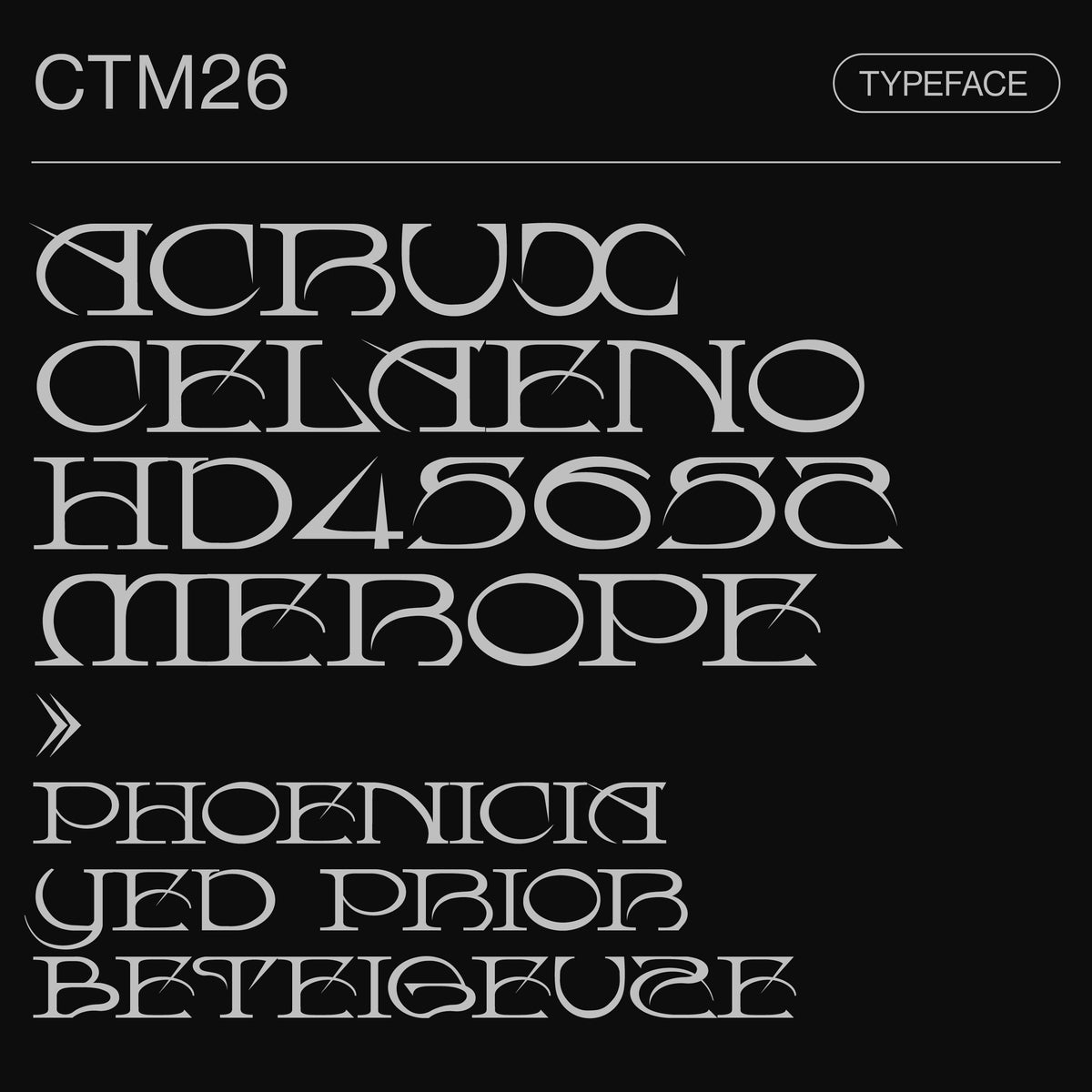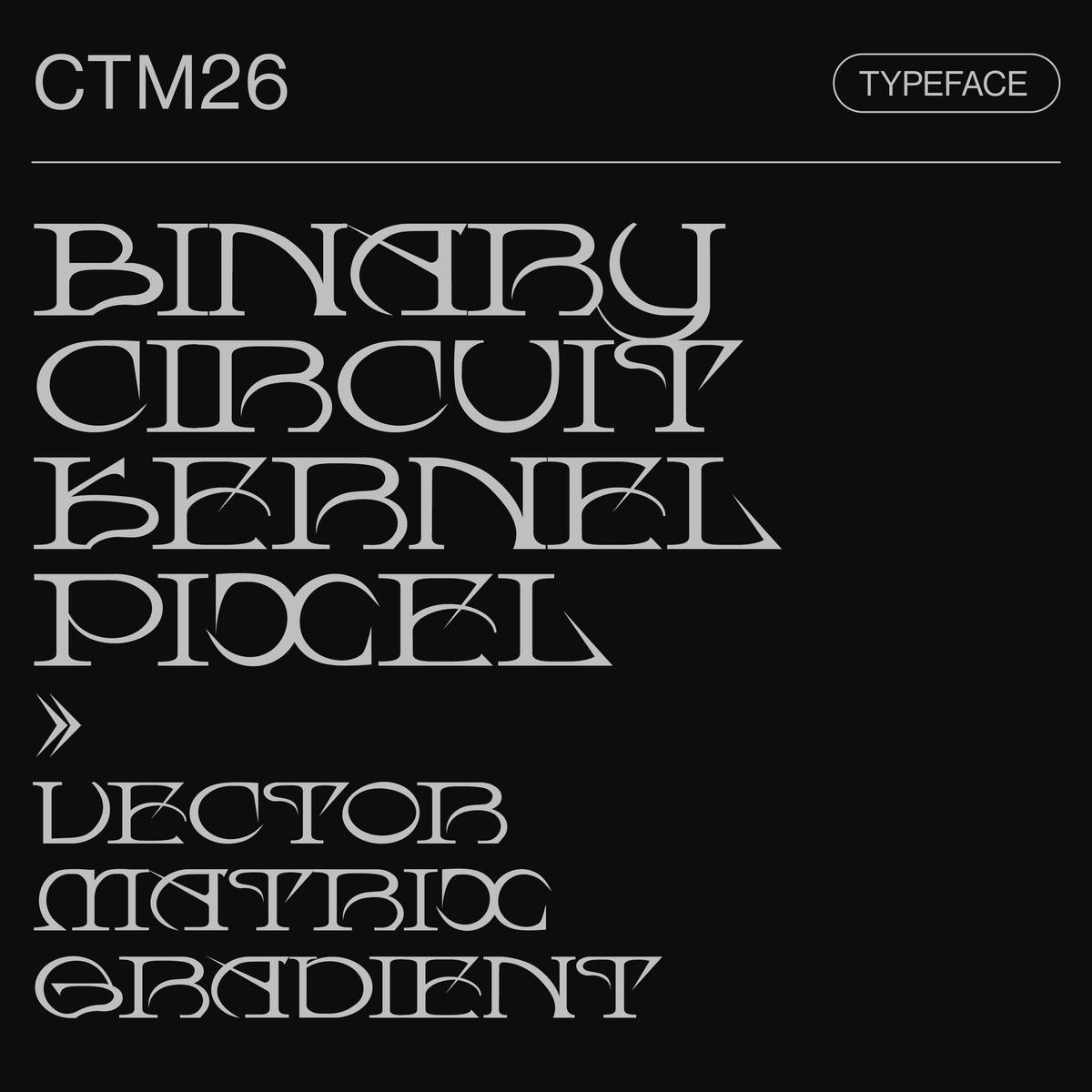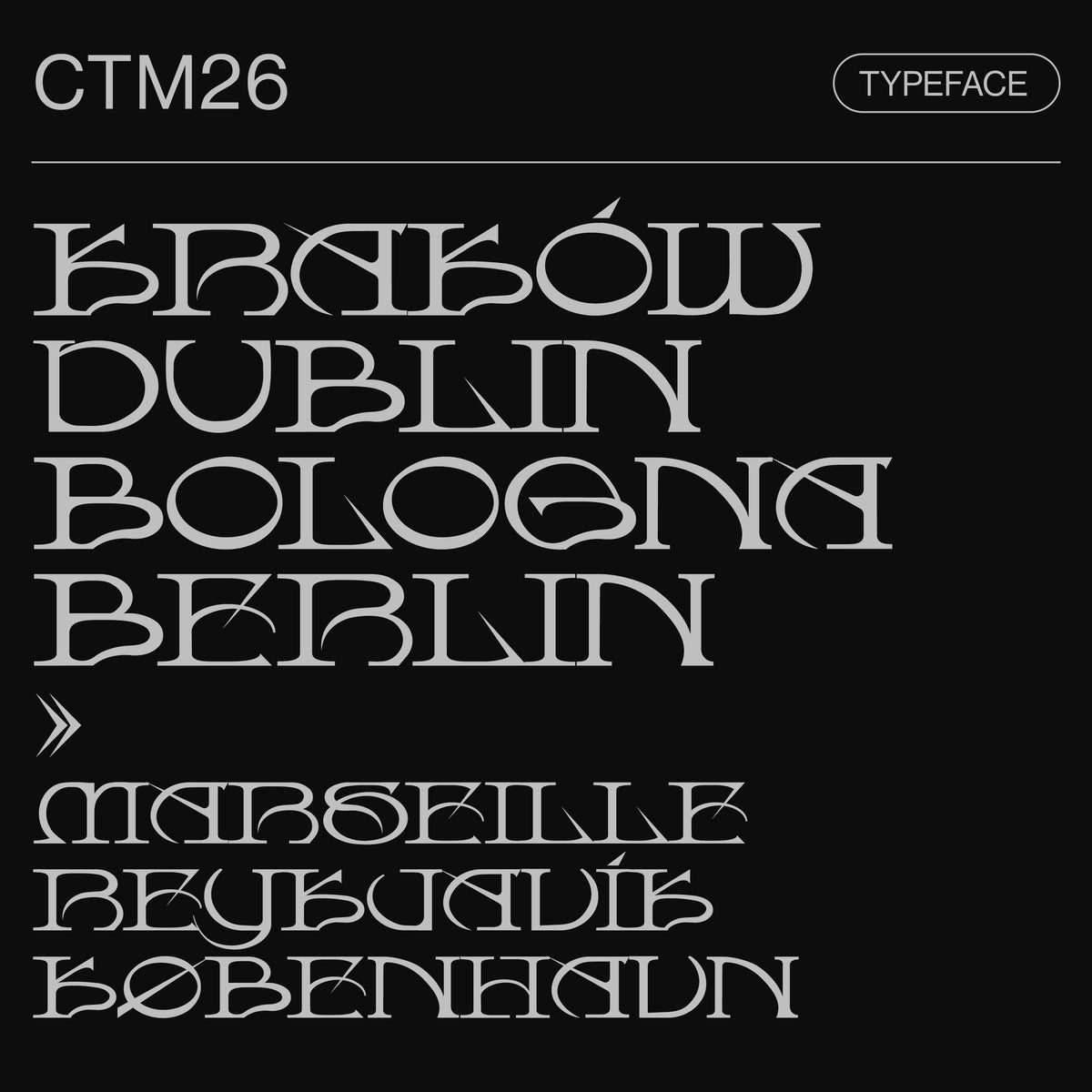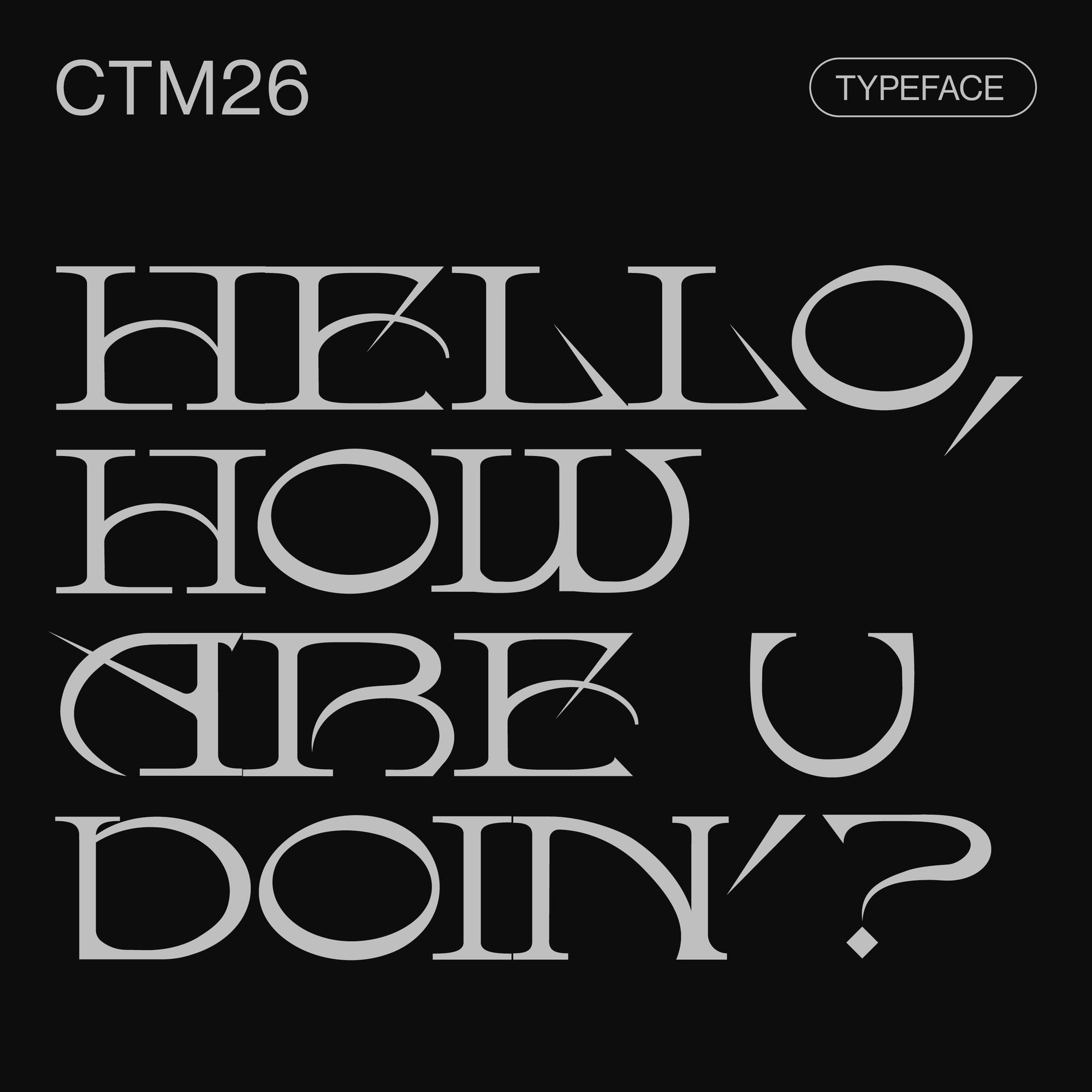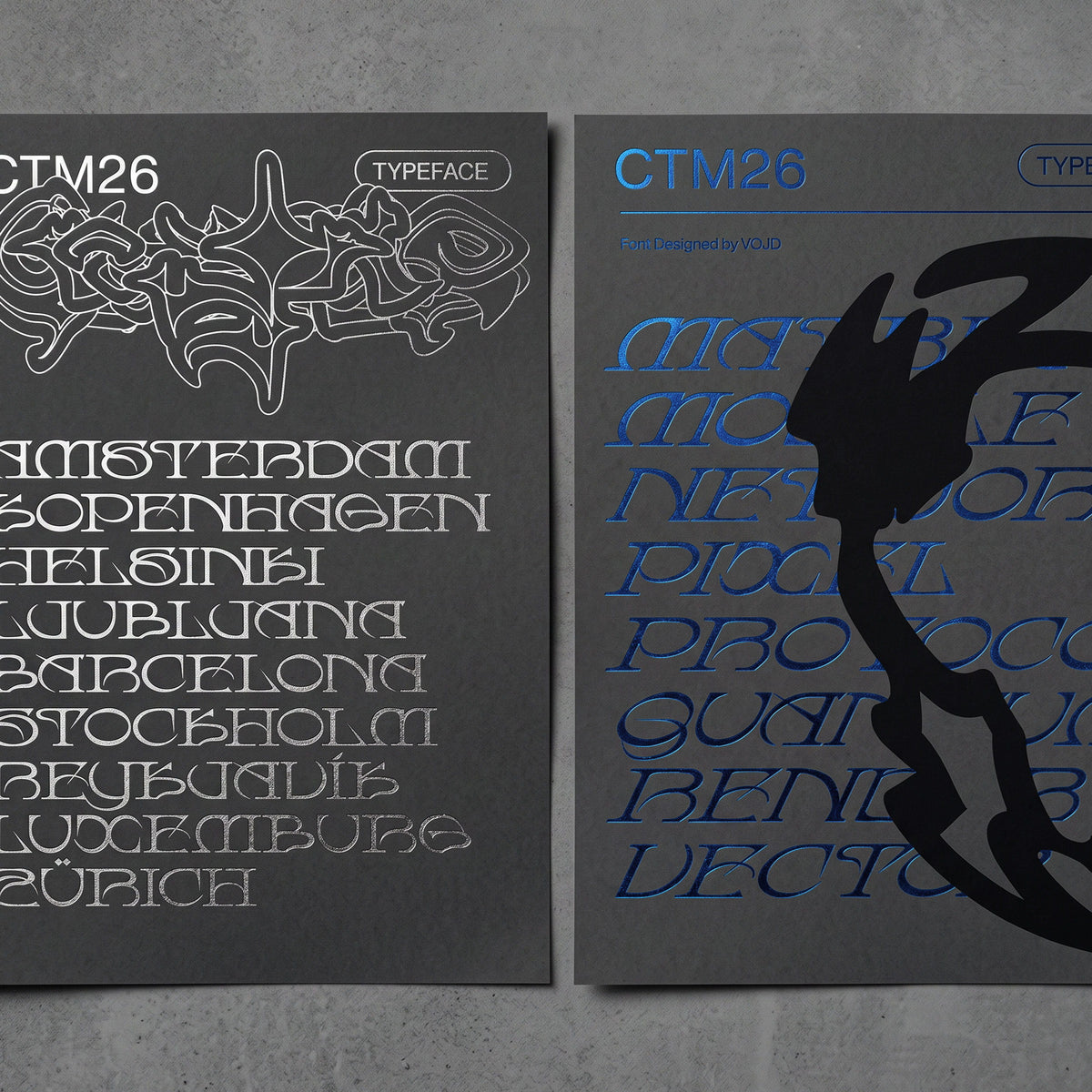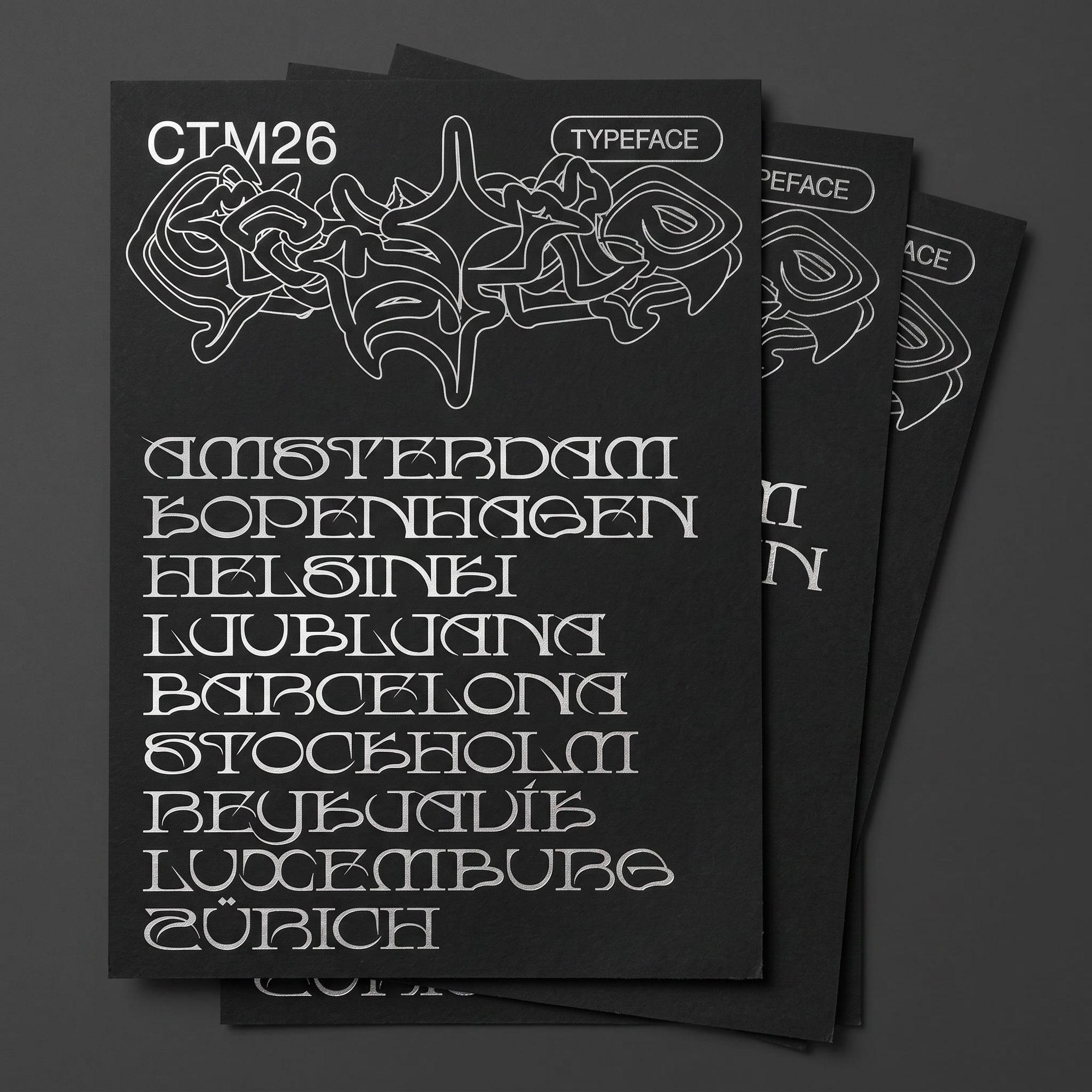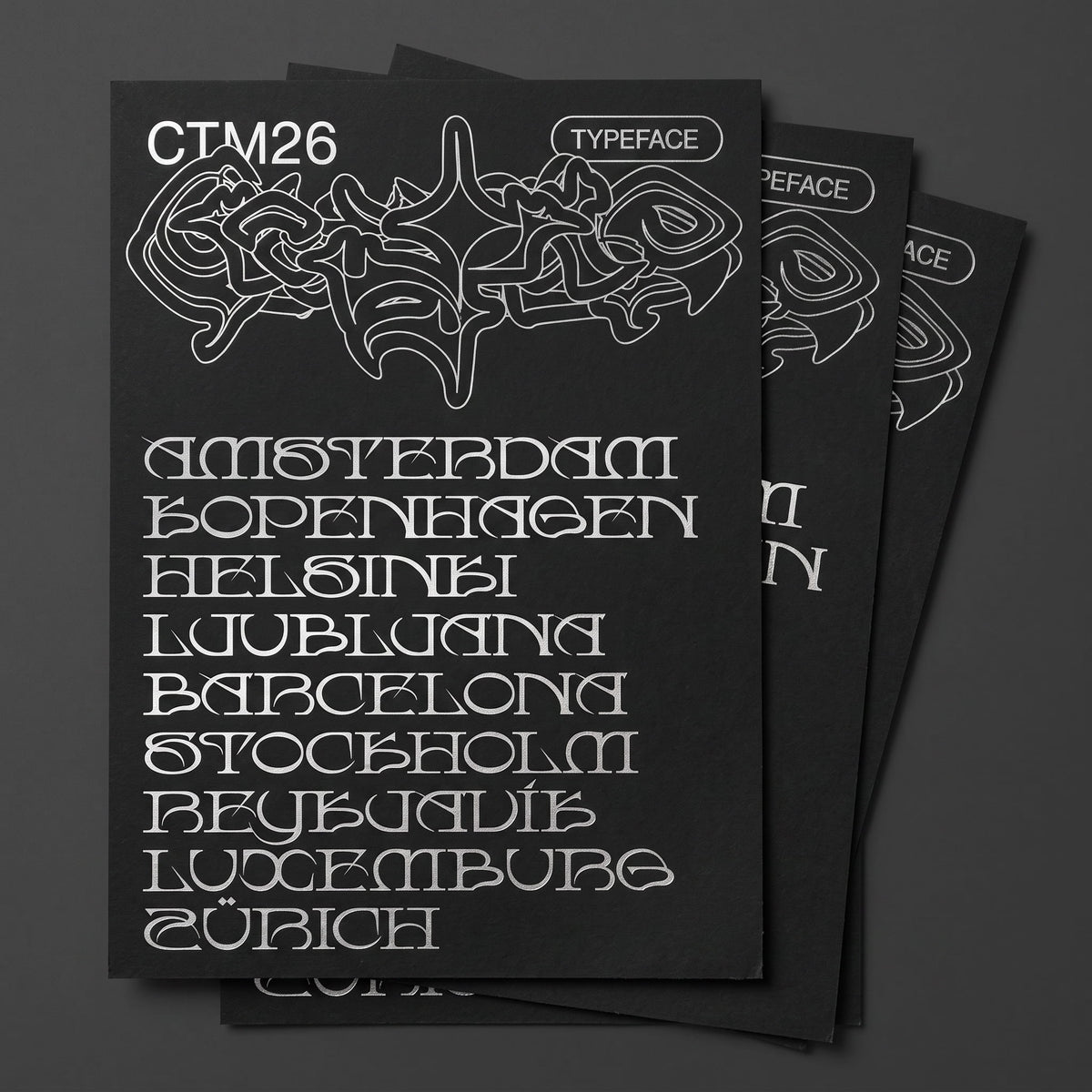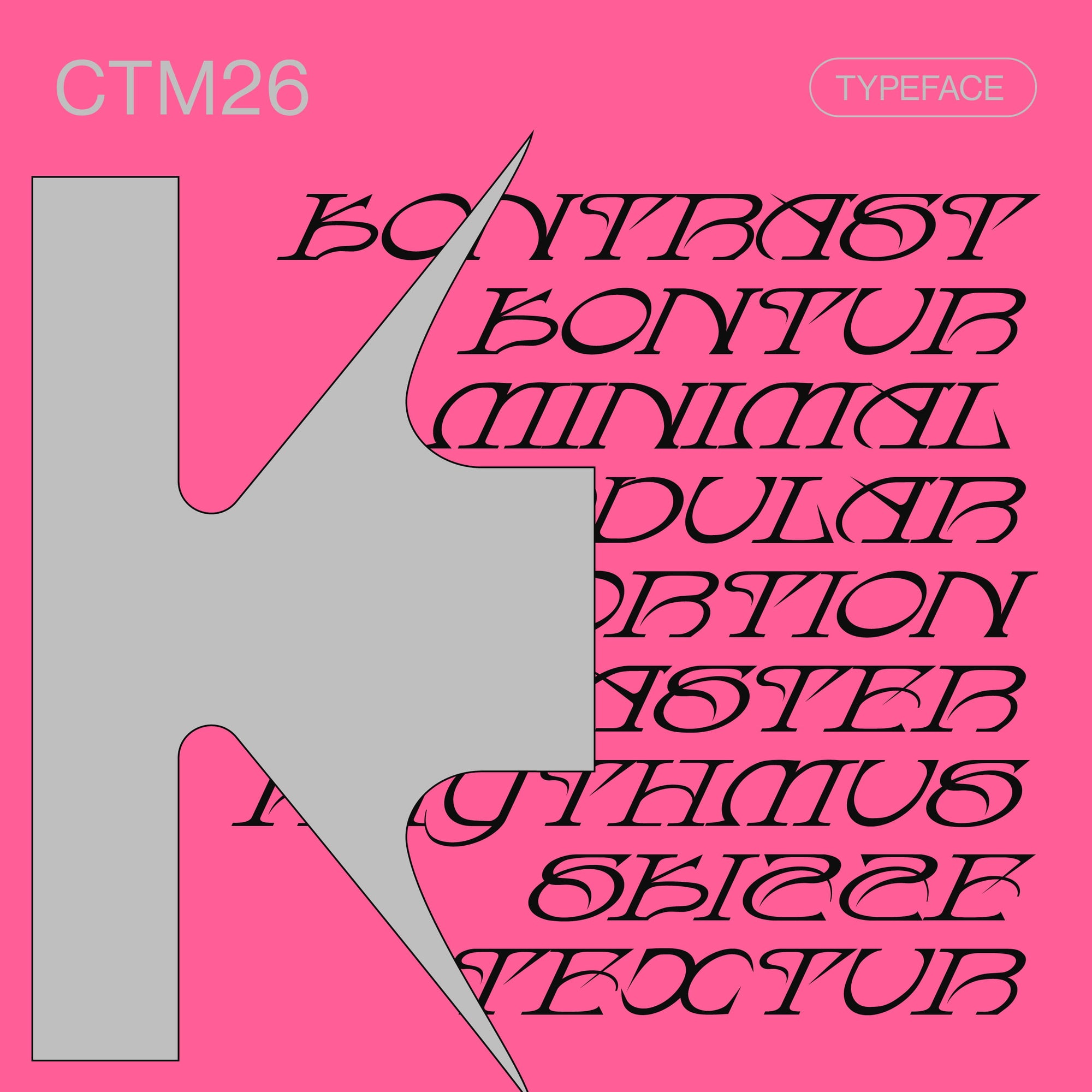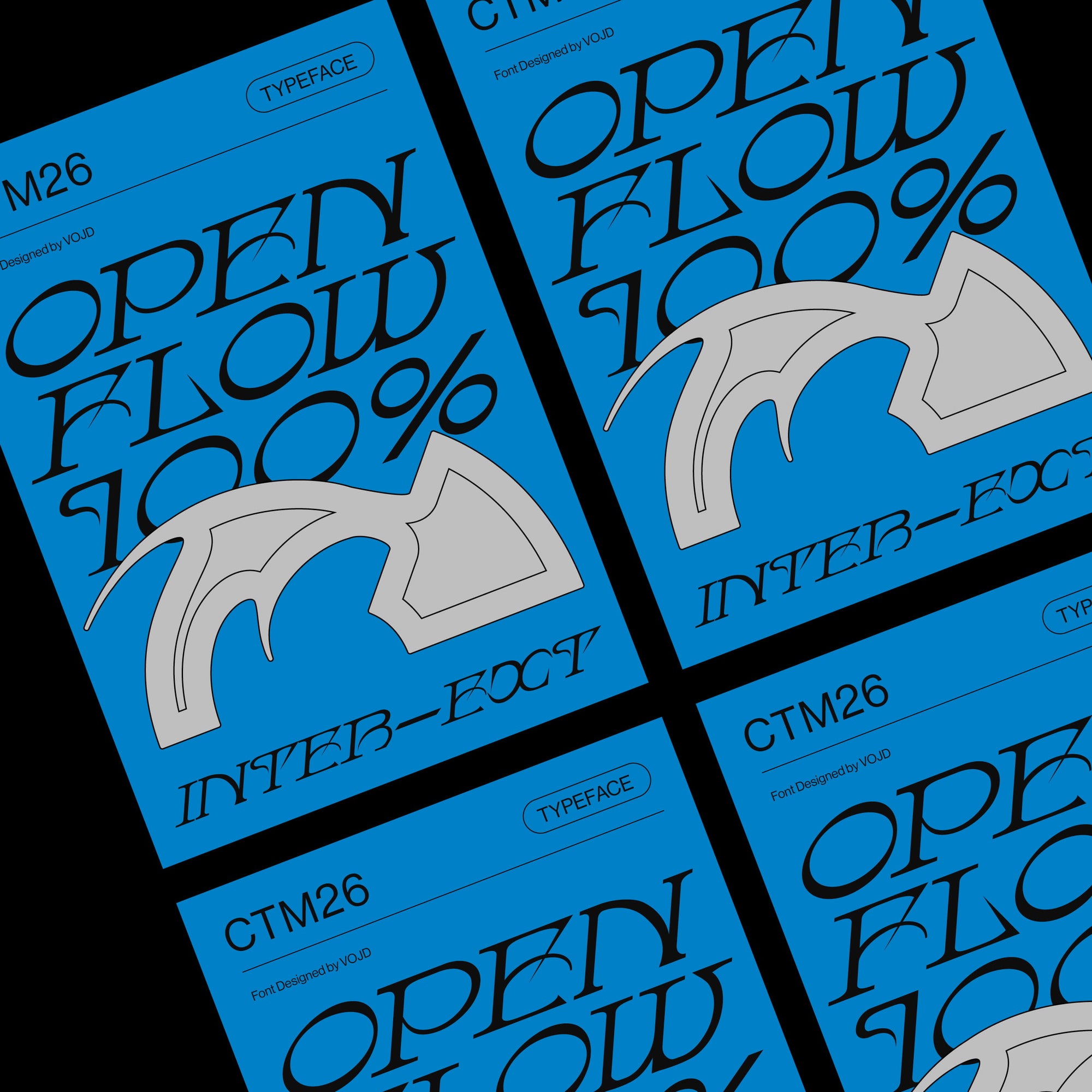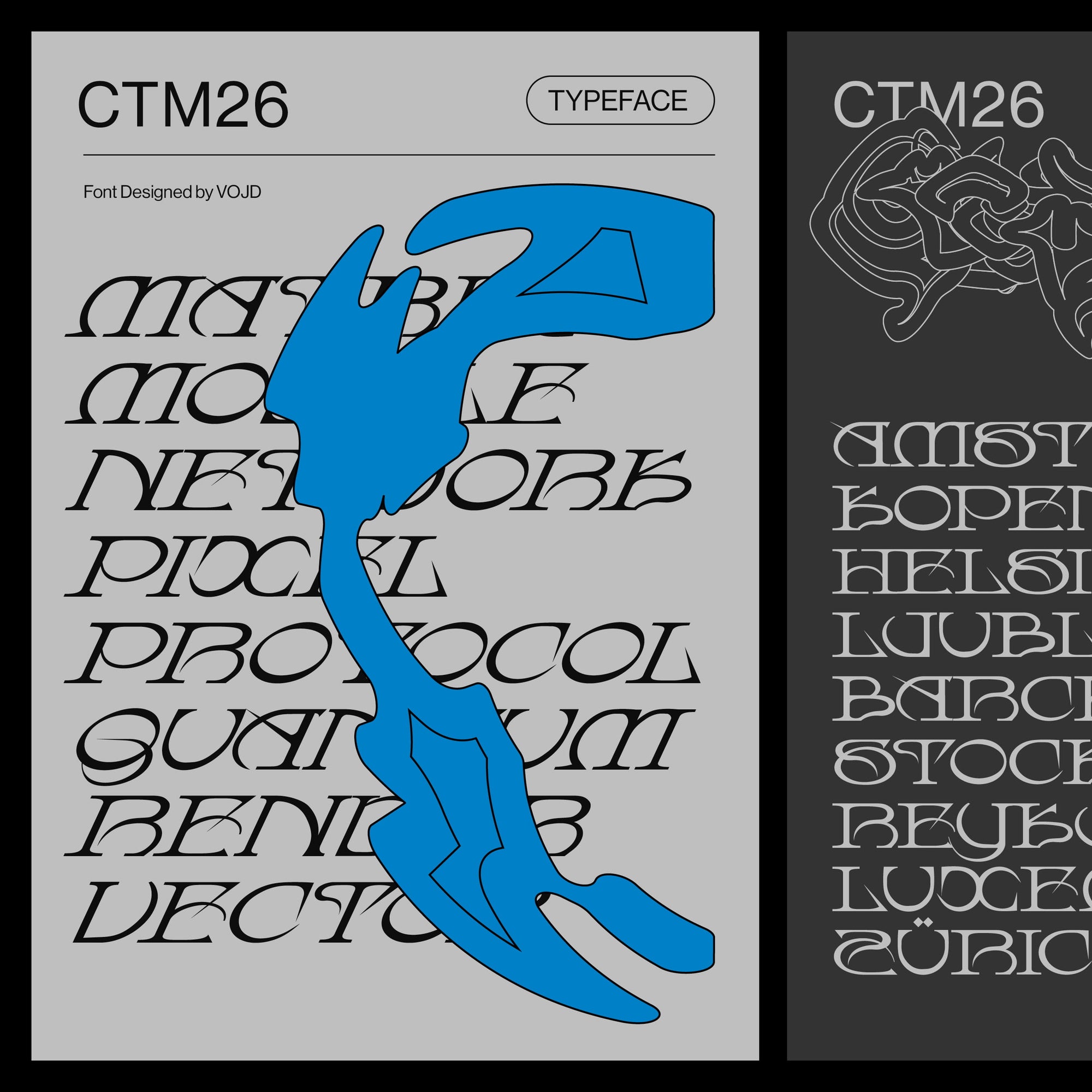
CTM26 Typeface
CTM26 is a geometric display serif with a strong Art Deco character and an unconventional edge. Circular counter-forms dominate the letterforms, while sharp spur terminals create a deliberate tension between soft curves and hard cuts — giving the typeface a visual weight that reads as decorative and confrontational at the same time.
Available in Regular and Italic, CTM26 is built for projects where typography needs to carry the full visual load. The expressive letterforms work at large display sizes — posters, editorial titles, album covers, cultural identities, and brand wordmarks that need to stand apart from conventional type choices.
• 2 Styles (Regular, Italic)